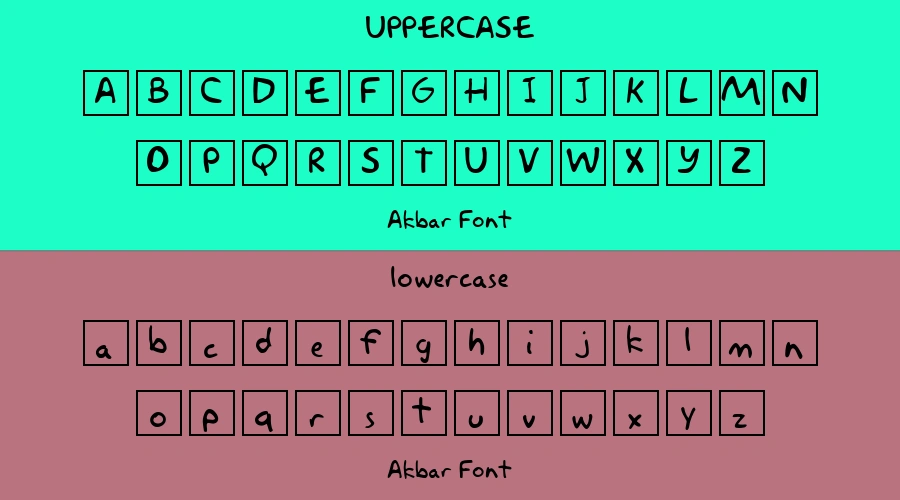
About Akbar Font
Akbar Font embodies typographic excellence through its masterful combination of strong contrast and typographic color. Created for marketing materials, this typeface delivers exceptional precision and industrial strength across all applications. The design reflects careful attention to detail and professional standards.
Advanced capabilities include distinctive balanced proportions and versatile initial forms, giving designers creative control. When used in compliance materials, Akbar Font exhibits remarkable consumer preference. The harmonious balance between aperture size and educational suitability sets this typeface apart.